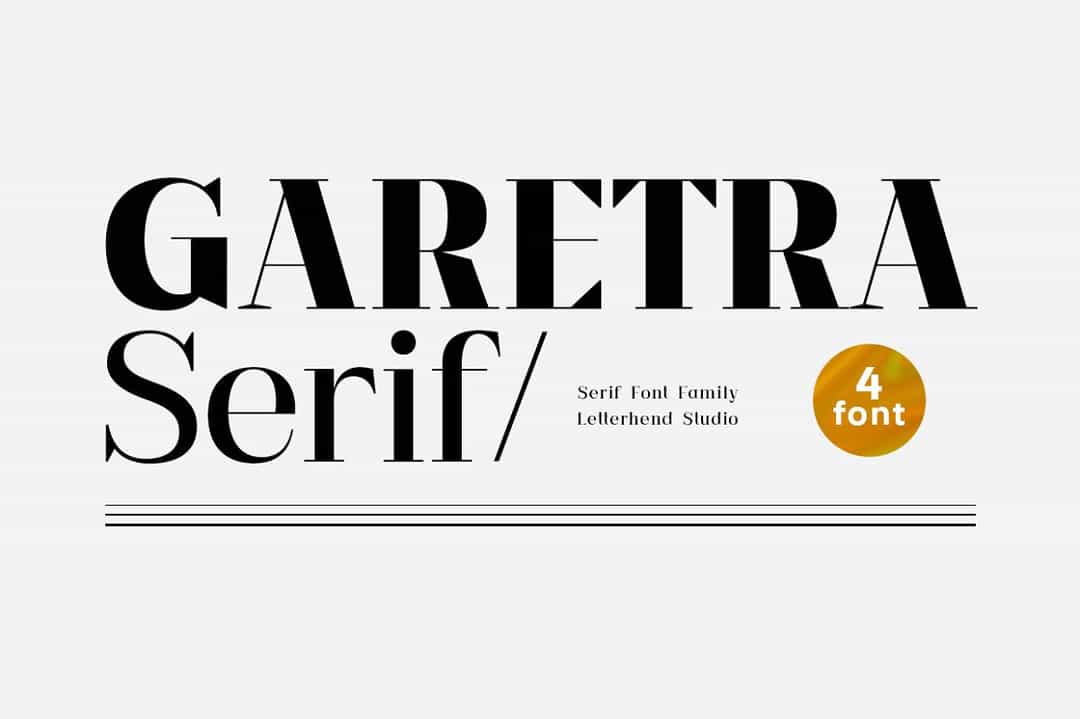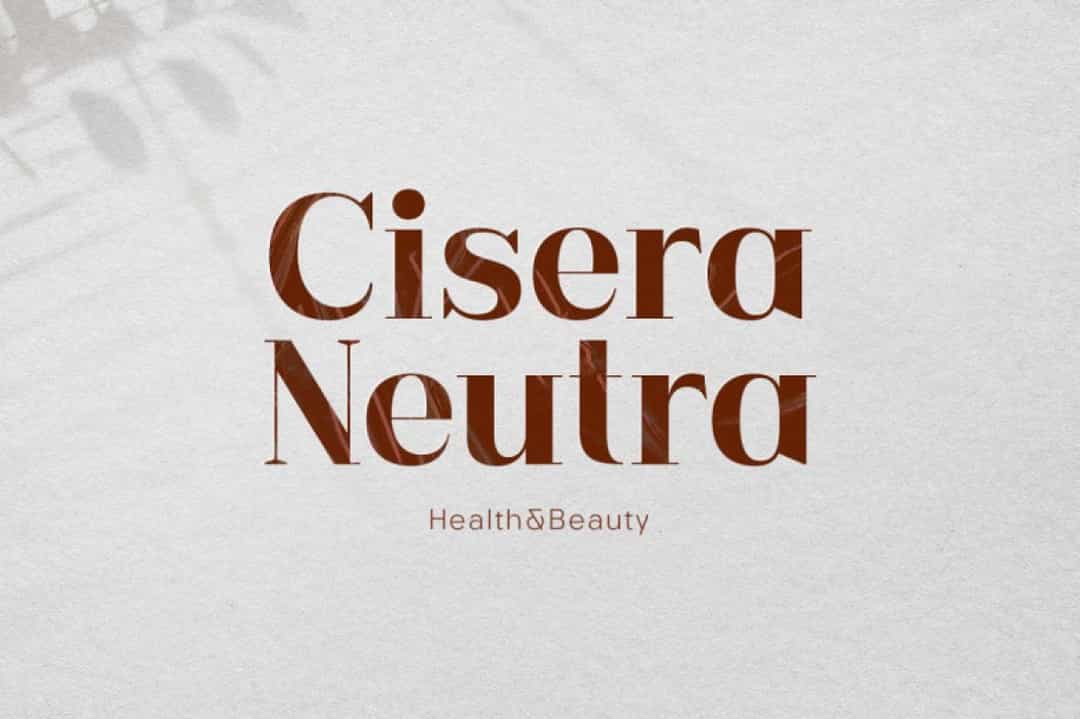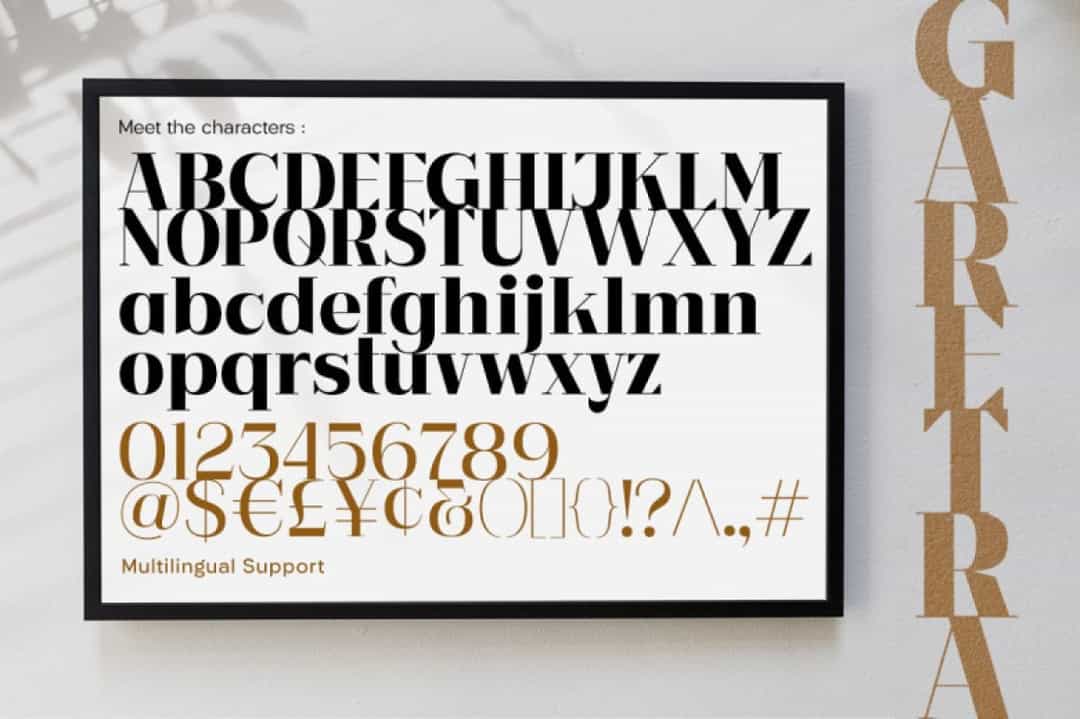
Garetra is an elegant serif font that comes in four different weight styles that you can experiment with to meet any need, be it creating an eye-catching headline or tagline. You have several weight options from which you can select.